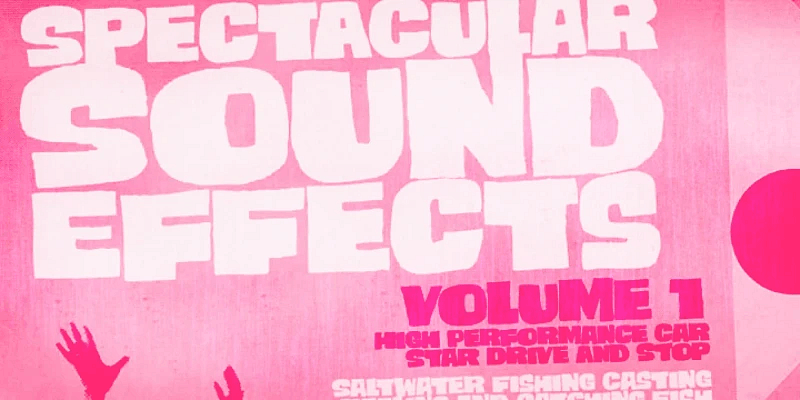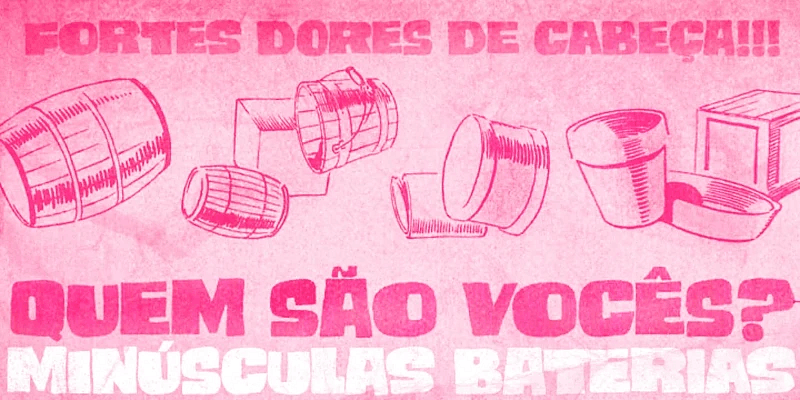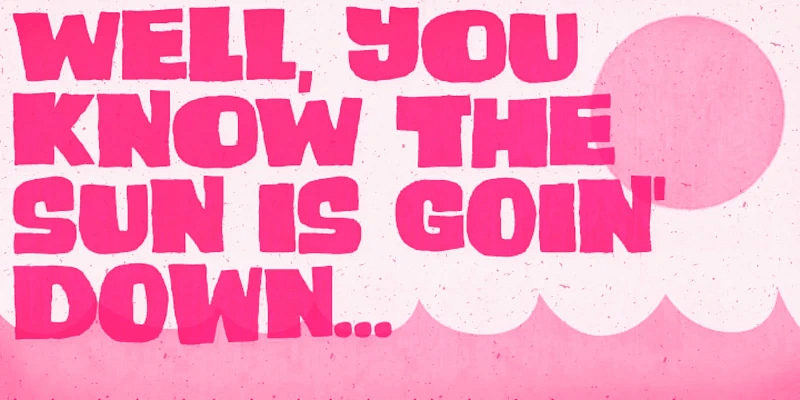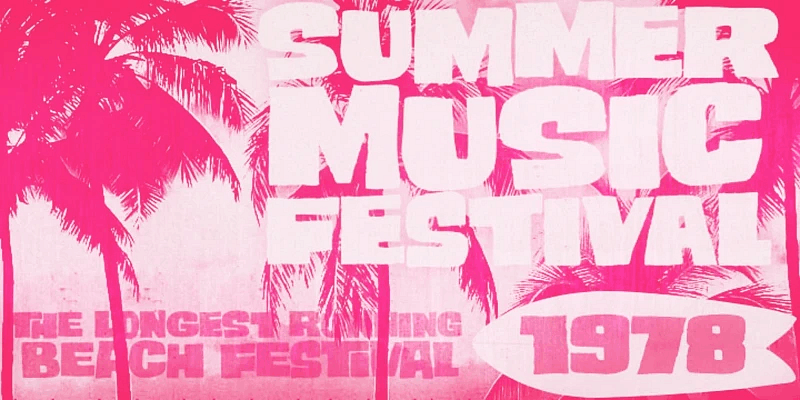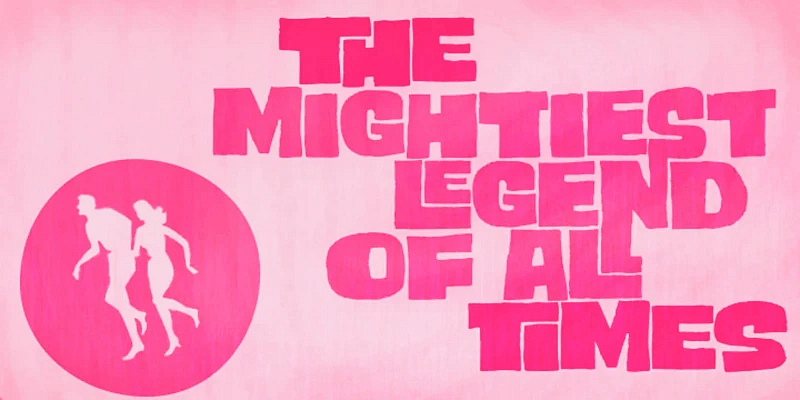
“Smashing is a boldly stout all-caps typeface with a twist. It has a massively monumental feel and buckets of good humor. With two options for each letter shape, repetition is minimized, providing a more spontaneous overall look. Tip: set it tight for maximum impact! With its hefty presence, you can make a statement in automotive billboards, food packaging, concert posters, apparel brands, and outdoor magazines! A smashing font for truly smashing designs!
Designed by Erica Jung and Ricardo Marcin. Smashing is a font family from PintassilgoPrints—a member of The Type Founders collection. For additional license options like app, enterprise, multi-user, and self-hosted web, visit PintassilgoPrints.”